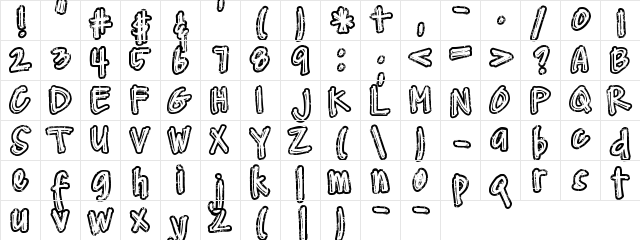
DJB Worn at the Knees Regular
Design Context for DJB Worn at the Knees Typeface
DJB Worn at the Knees trades polish for personality, using distressed and eroded forms to bring grit and attitude to creative work.
Suited to punk-influenced zines, underground music branding, streetwear, and raw, anti-corporate design.
Pro Tip: Pair DJB Worn at the Knees with intentionally raw or lo-fi design elements. Fighting against it with overly polished surroundings will undermine its personality.